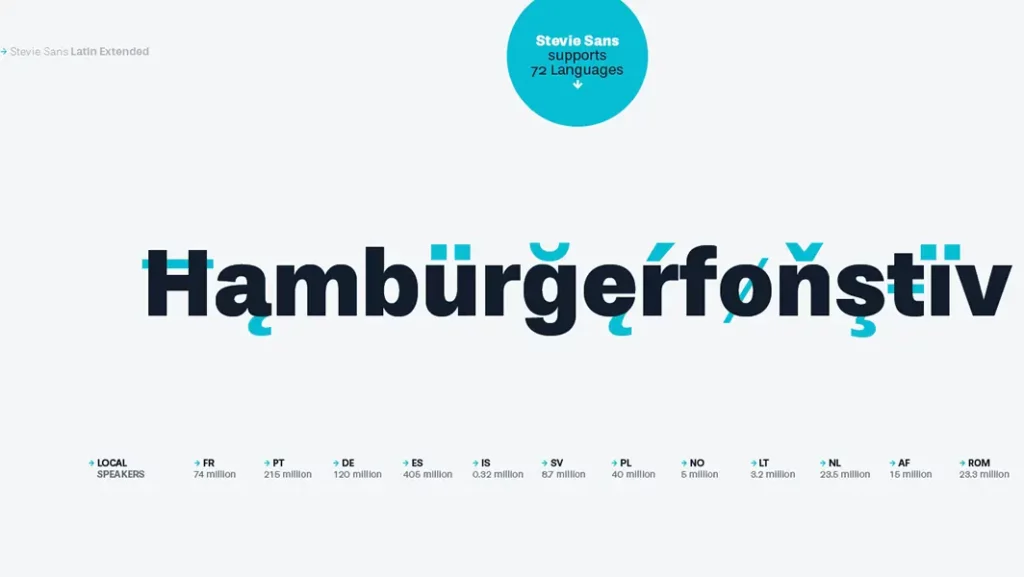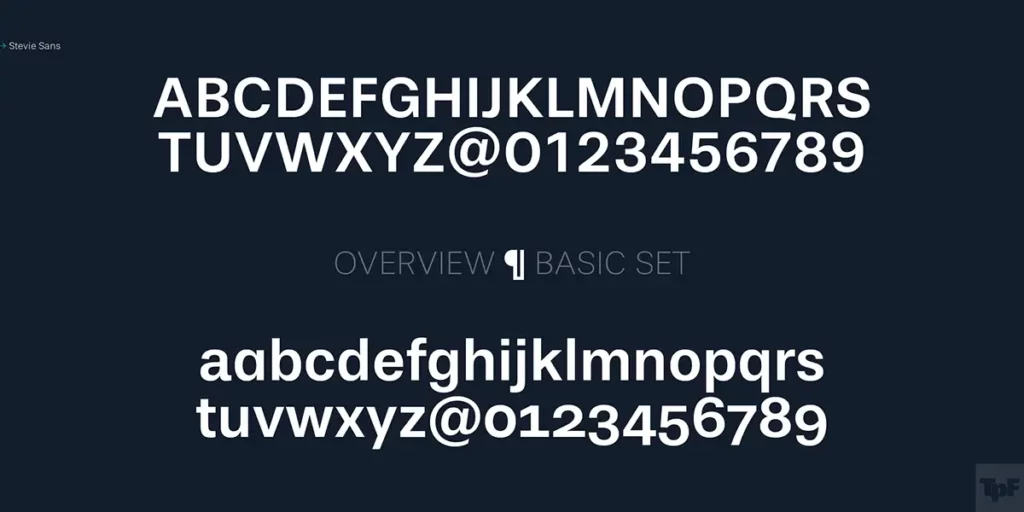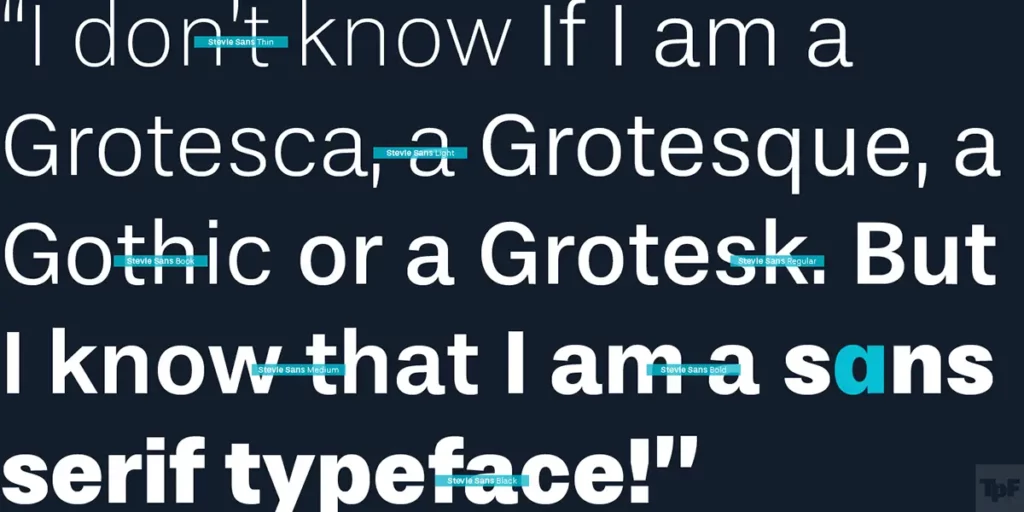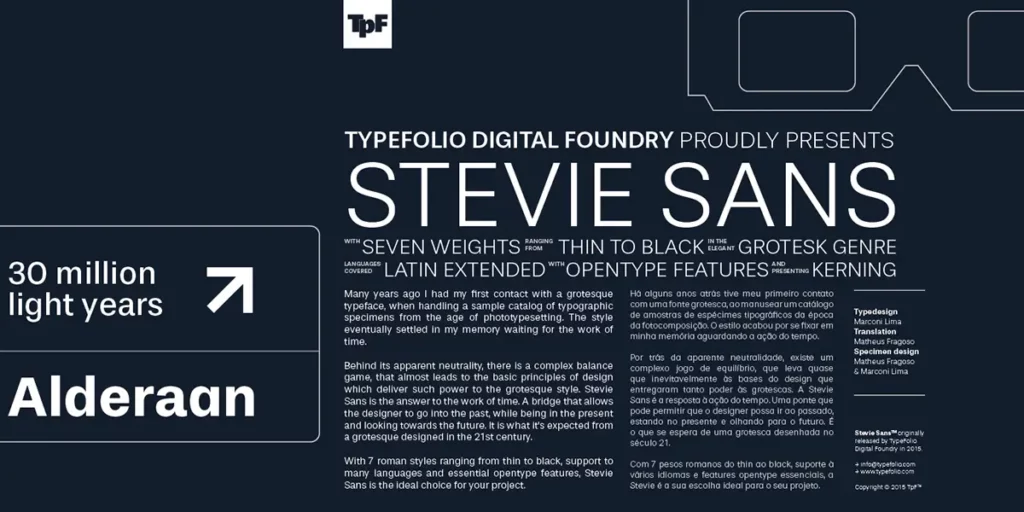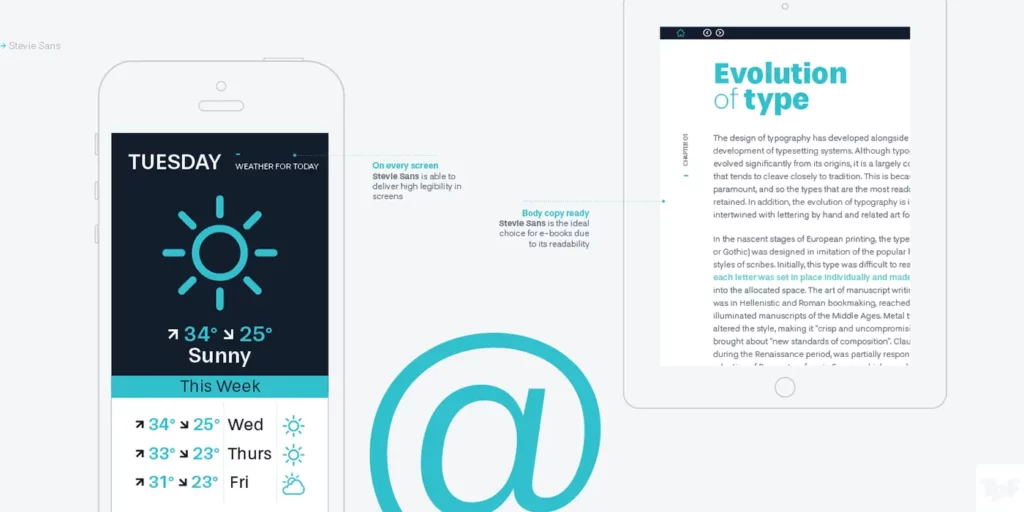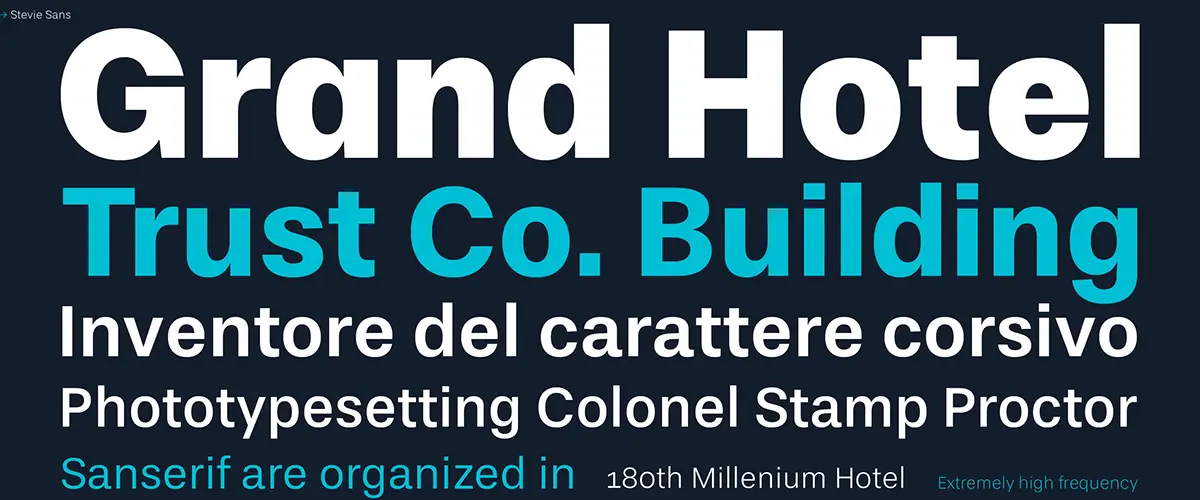
Stevie Sans font is a sans-serif typeface family designed by Marconi Lima, a Brazilian type designer and founder of Typefolio Digital Foundry. The font was inspired by a grotesque typeface from the age of phototypesetting and aims to bridge the past, present, and future of typography. It is a versatile font that can be used for a variety of purposes, including headlines, body text, and logos.
The font has 7 styles, ranging from thin to black, that offer a wide range of weights and expressions. The font supports many languages, too. It also has some OpenType features, such as standard ligatures, fractions, ordinals, and stylistic alternates. The font has a high x-height and low contrast, which make it suitable for both headlines and paragraphs.
Stevie Sans is a versatile font that can be used for various purposes, such as web design, branding, editorial design, advertising, and more. The font can also be paired with other fonts to create contrast and harmony.
A: Stevie Sans offers 7 roman styles, ranging from thin to black.
Stevie Sans is a contemporary sans-serif font that combines the simplicity and elegance of a grotesque typeface with the functionality and aesthetics of modern typography. It is a great choice for any project that requires a clean and versatile font with a touch of personality.